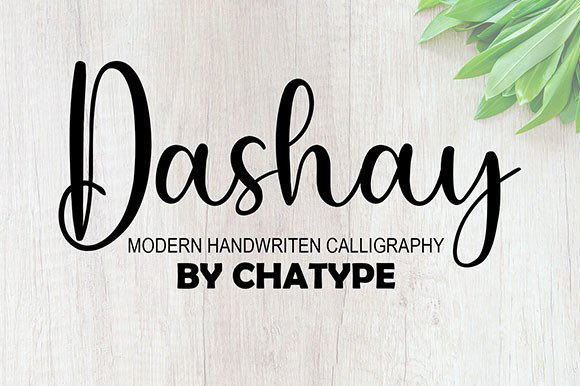
About Dashay Font
Dashay is a cursive and elegant handwritten font suitable for various projects such as quotes, logos, blog headers, posters, ribbons, fashion, clothing, letters, invitations, stationery, etc.